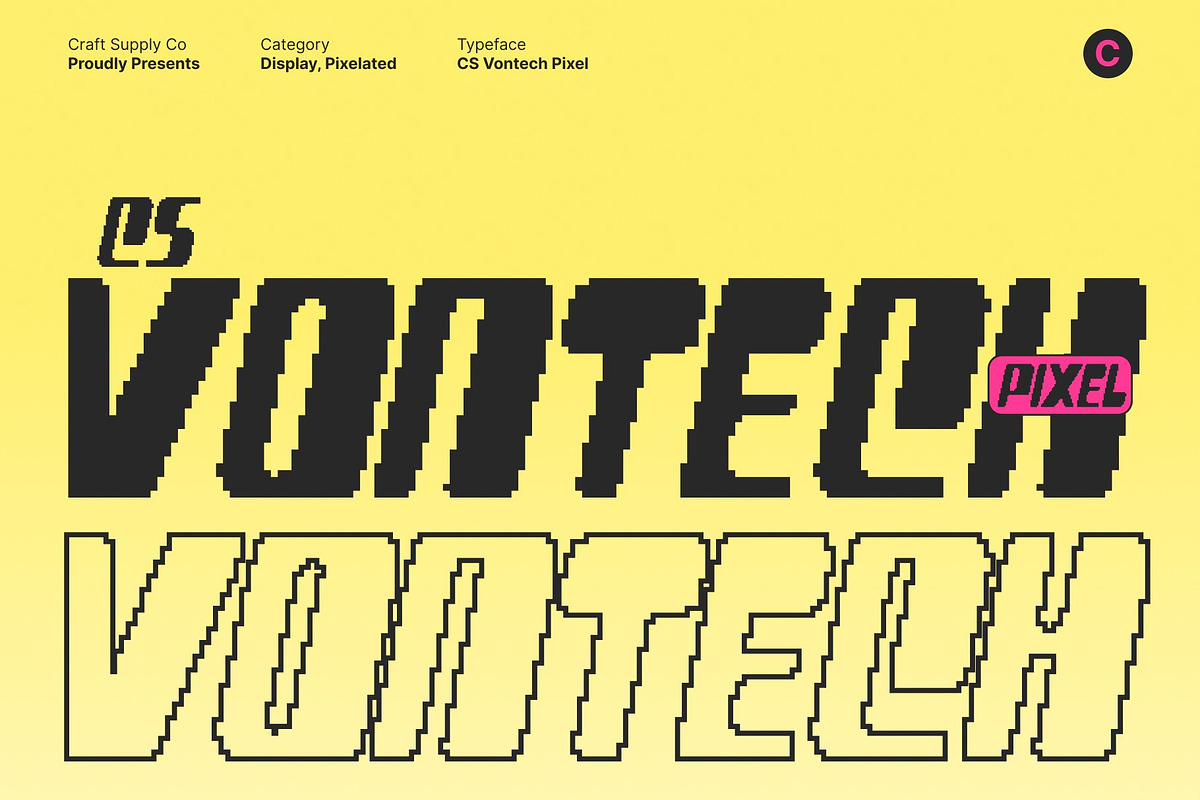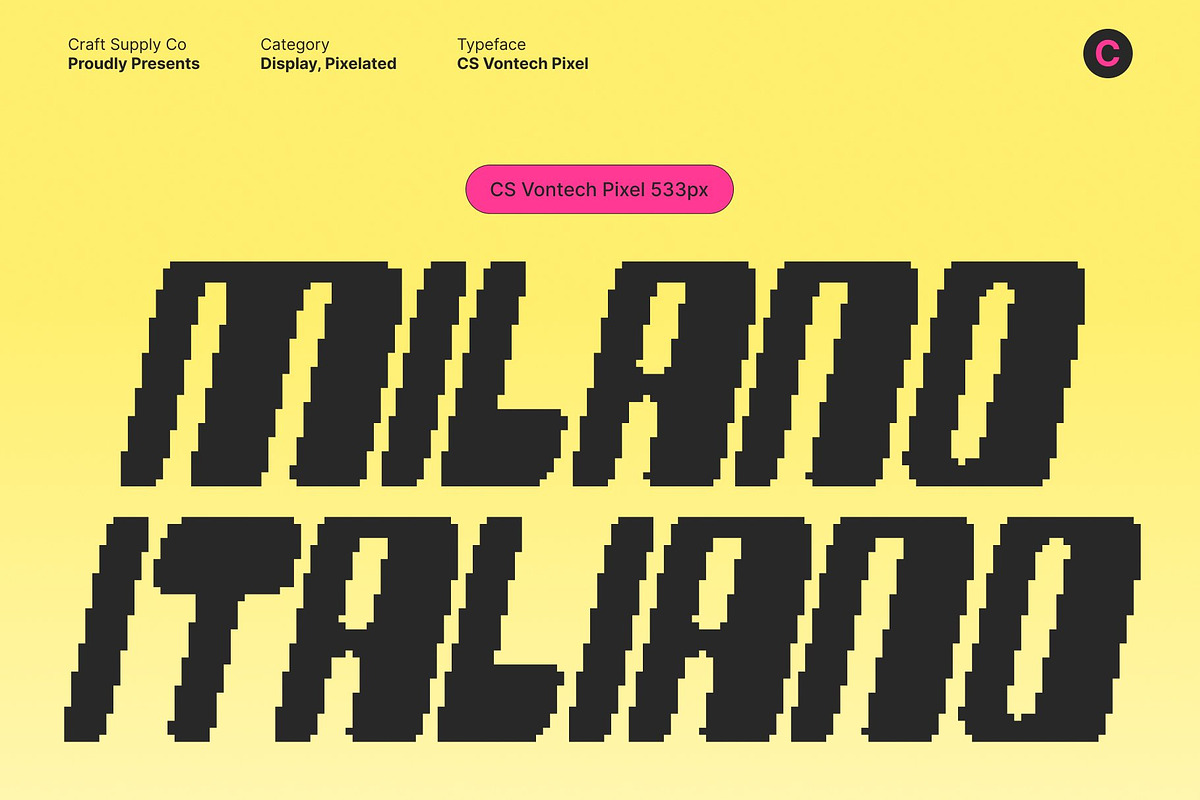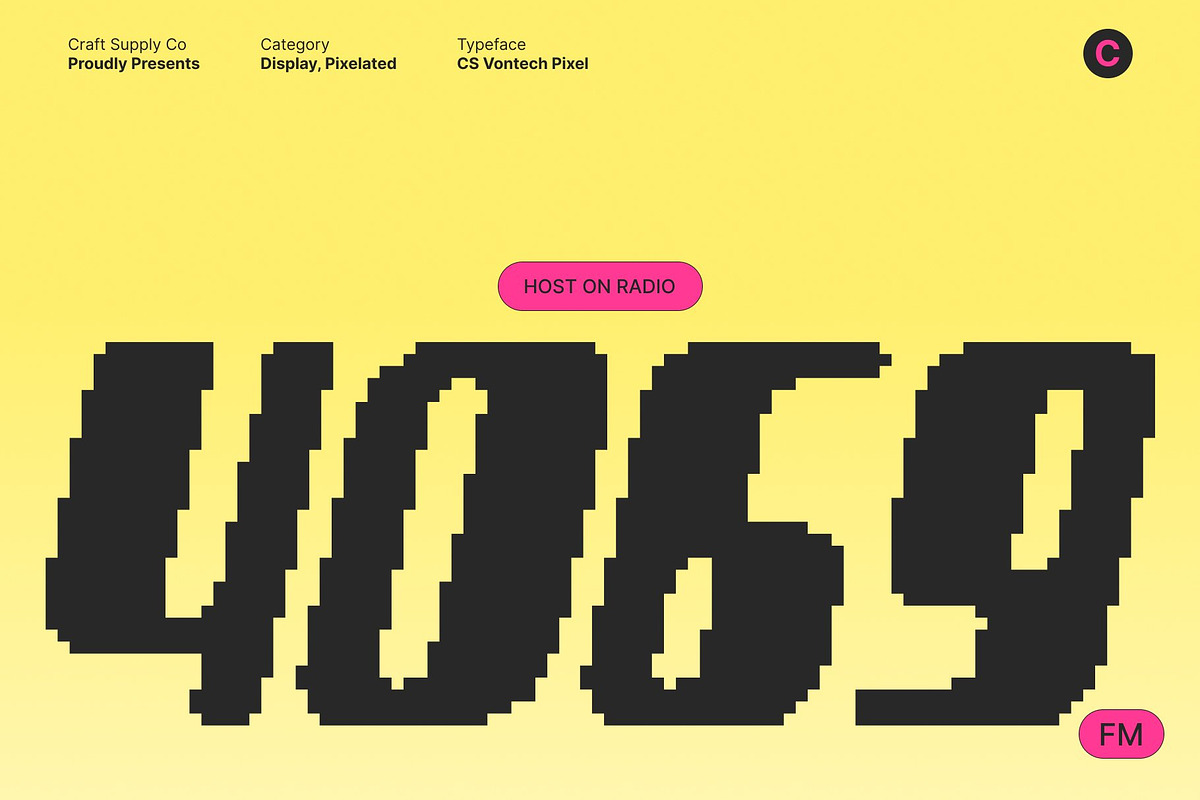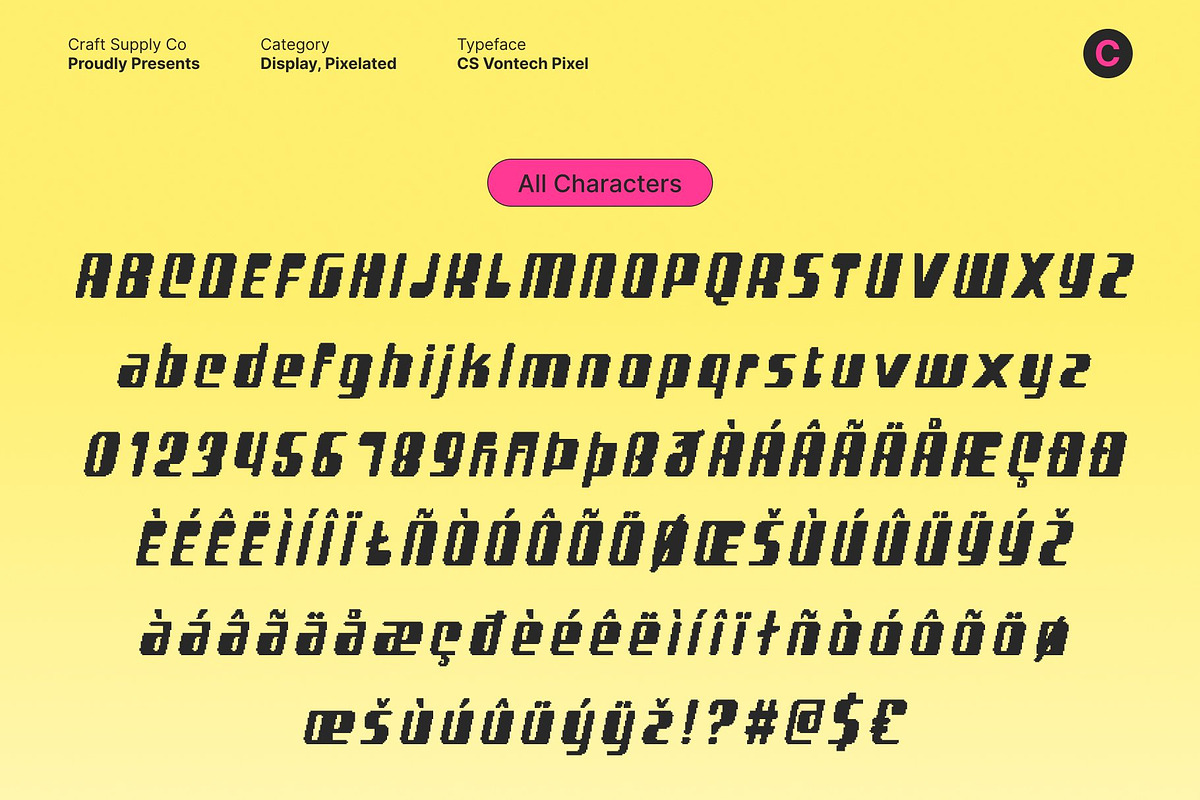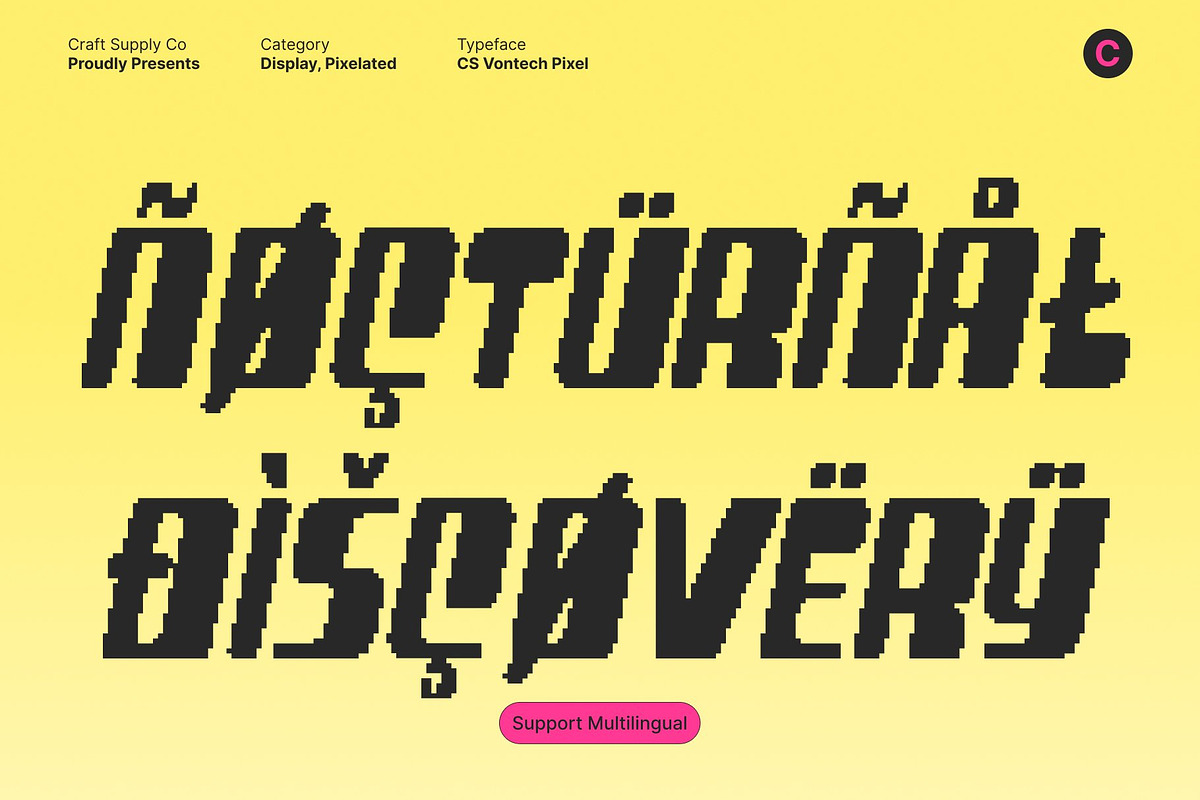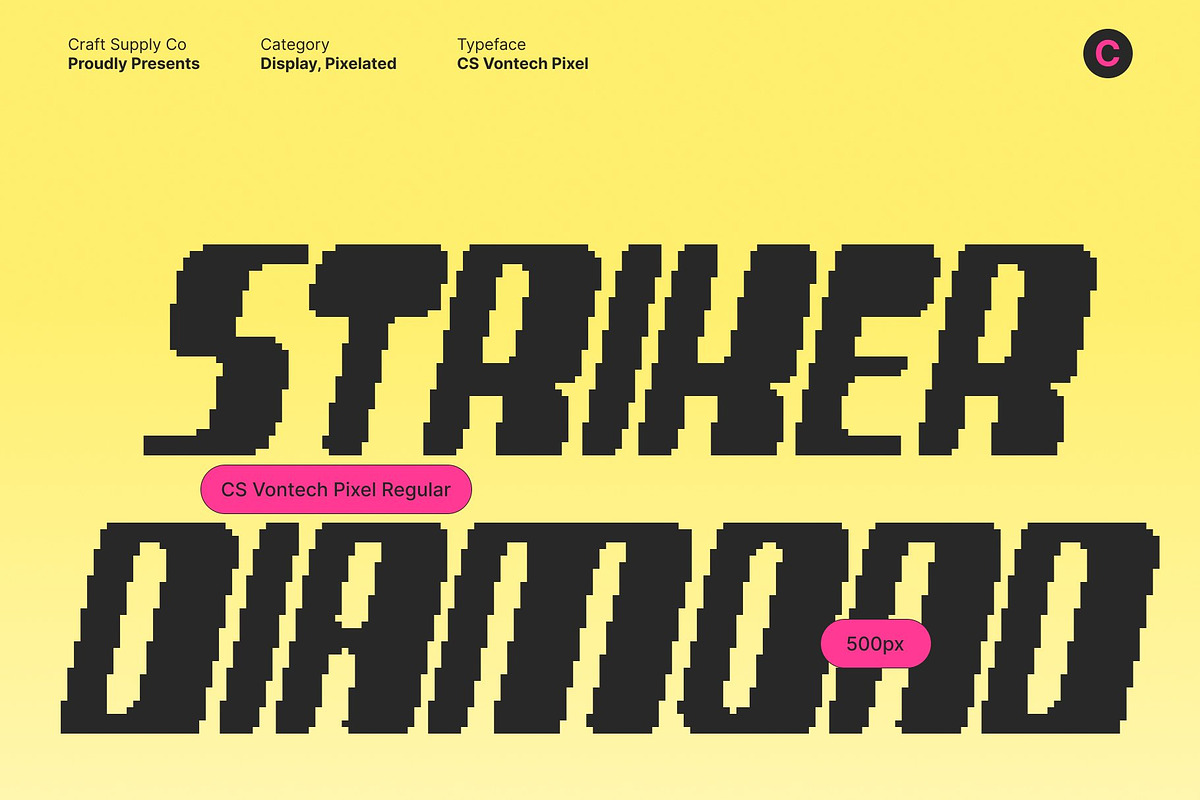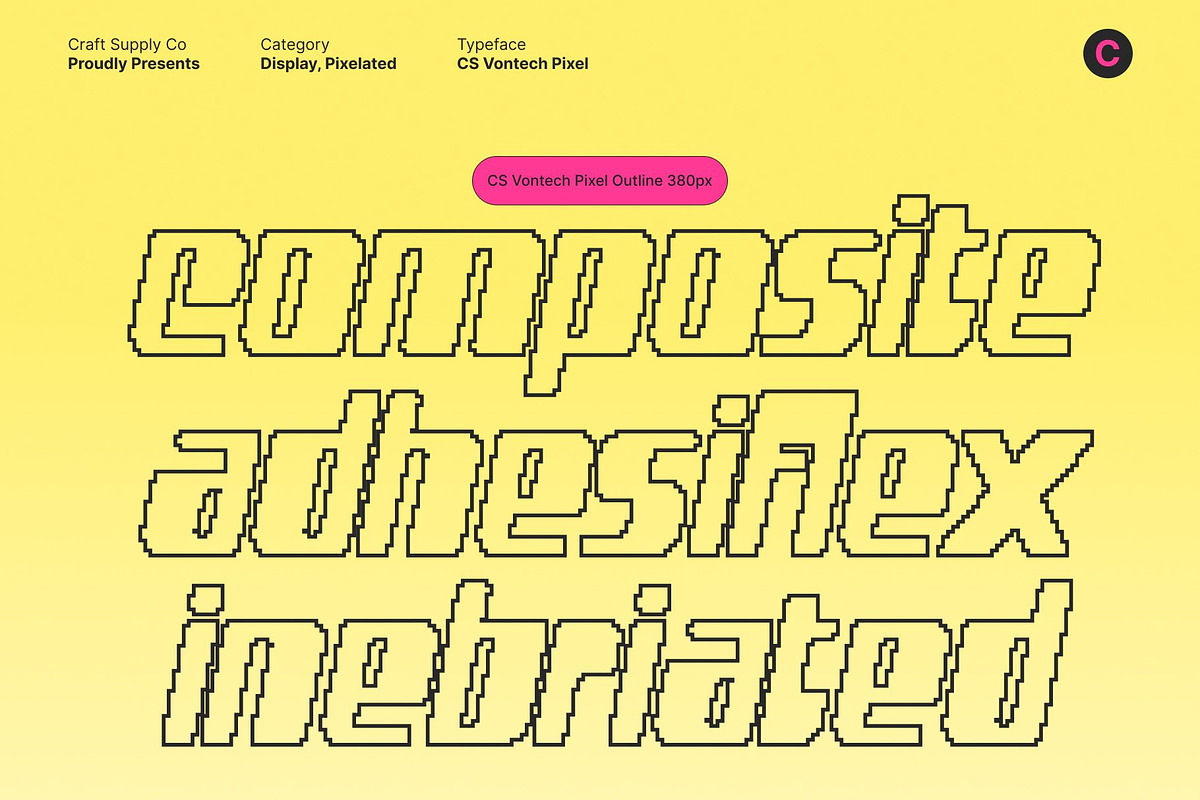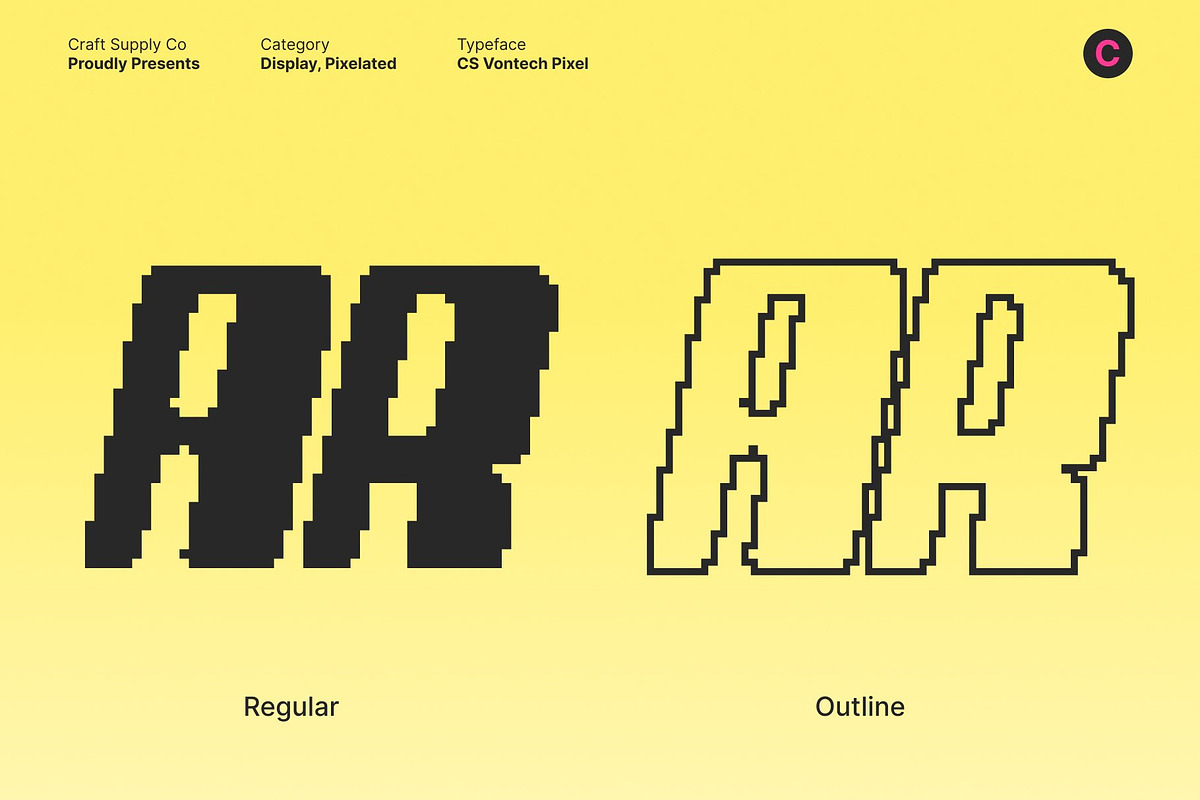
CS Vontech Pixel
CS Vontech Pixel – Y2K Display Font with Futuristic Energy
Dynamic Y2K Display with Pixel Impact This is a bold Y2K-inspired display font that captures the vibrant optimism of early 2000s digital culture. Built with strong geometric construction and distinct pixel-infused detailing, it radiates high-energy nostalgia with a sharp modern twist. Designed to stand out, it transforms typography into a powerful visual statement filled with futuristic confidence.
Tech-Driven Shapes with Structured Pixel Precision Defined by sharp contours and modular pixel edges, this font embodies innovation and digital dynamism. Each letterform feels engineered and intentional, echoing the tech-forward visions and cyber aesthetics that shaped the Y2K era. The structured pixel character enhances its techno identity, making it ideal for gaming visuals, sci-fi posters, and bold digital branding.
Futuristic Flair with Playful Retro Energy The combination of bold outlines, rhythmic geometry, and pixel accents creates a striking balance between retro nostalgia and forward-looking design. It delivers expressive movement and high-impact presence, perfect for music visuals, tech campaigns, streetwear branding, and energetic event graphics.
Versatile for Digital and Print Applications From logos and posters to motion graphics and social media content, this font adapts seamlessly across modern creative platforms. Its futuristic structure and pixel precision ensure clarity, impact, and unmistakable Y2K character in every design.
- CS Vontech Pixel Regular
- CS Vontech Pixel Outline